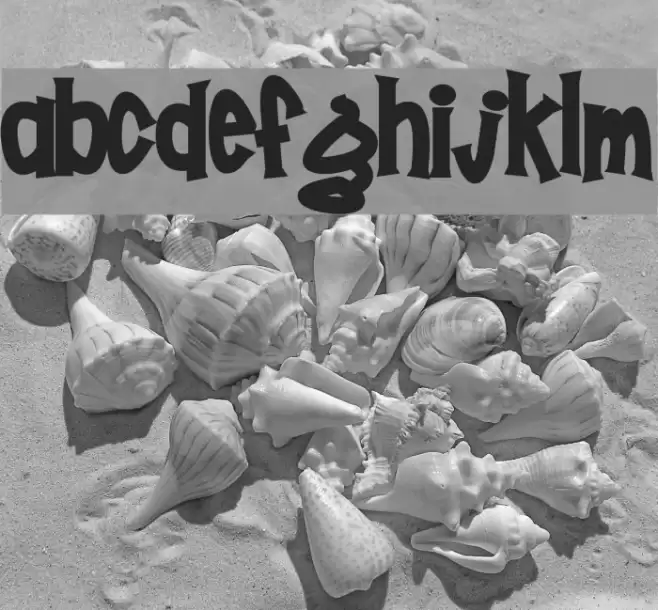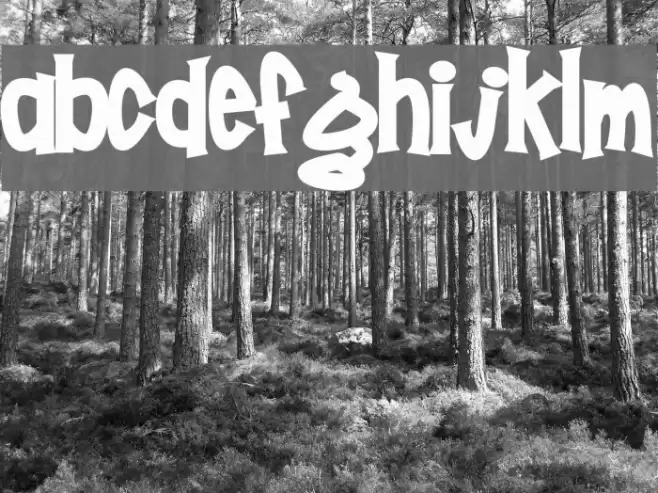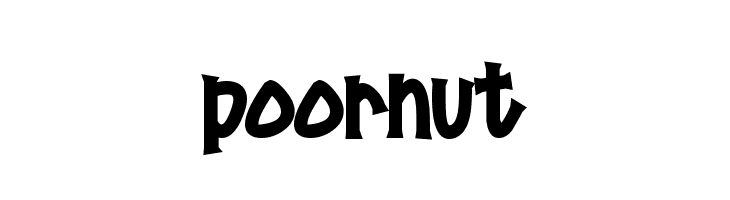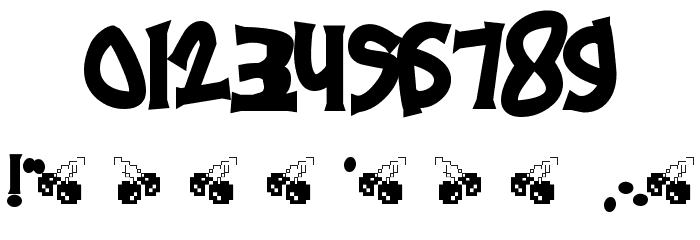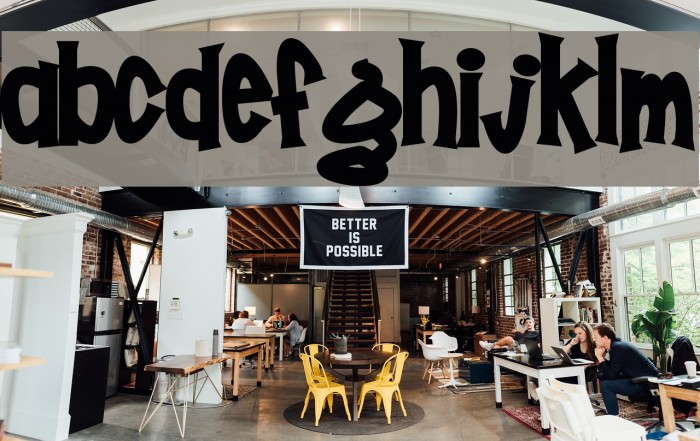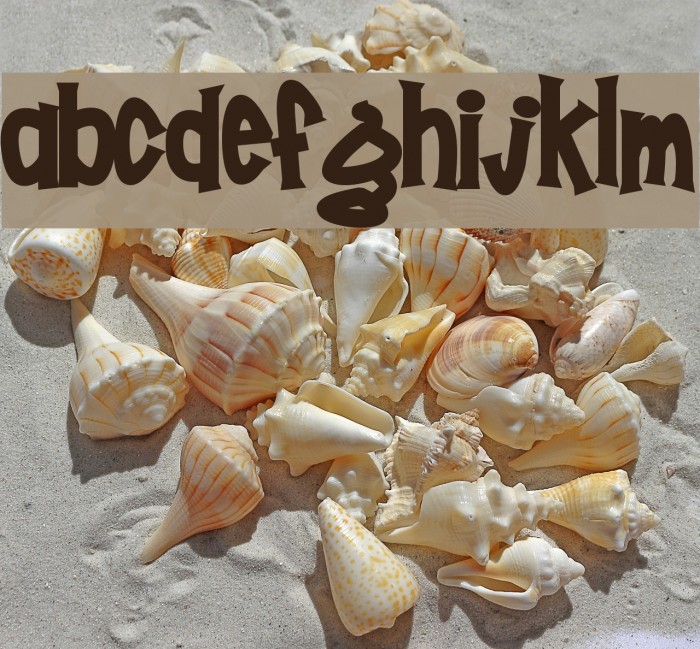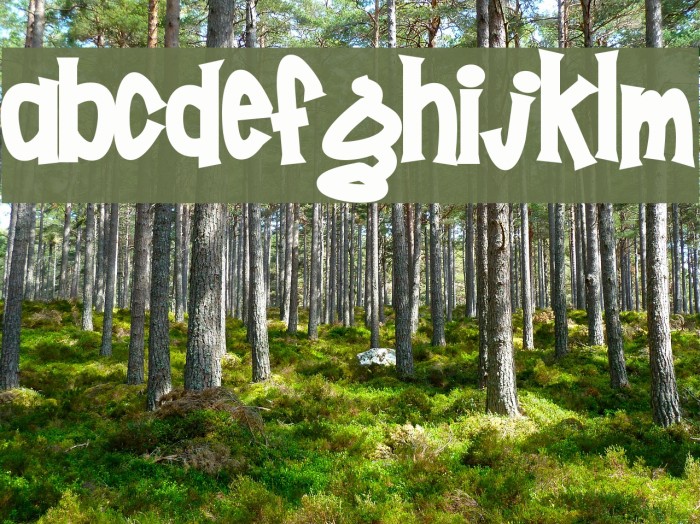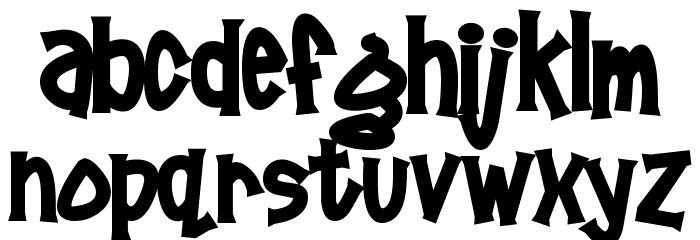
Poornut Font
Poornut Description
This font features a playful and bold design with exaggerated curves and angles, giving it a lively and energetic appearance. The characters are slightly irregular, adding a whimsical touch that is both eye-catching and unique. The uppercase and lowercase letters maintain a consistent style, with thick strokes and a strong presence. The numerals and special characters follow the same playful theme, making the font suitable for creative and informal applications. Its boldness and distinctive style make it stand out, perfect for projects that require a fun and engaging visual element.
A playful, bold font with exaggerated curves and angles, ideal for creative projects from Cartoon fonts.
- Proposed Projects: Children's books, party invitations, playful branding, posters, and social media graphics.
- Overall Style: Playful, Whimsical